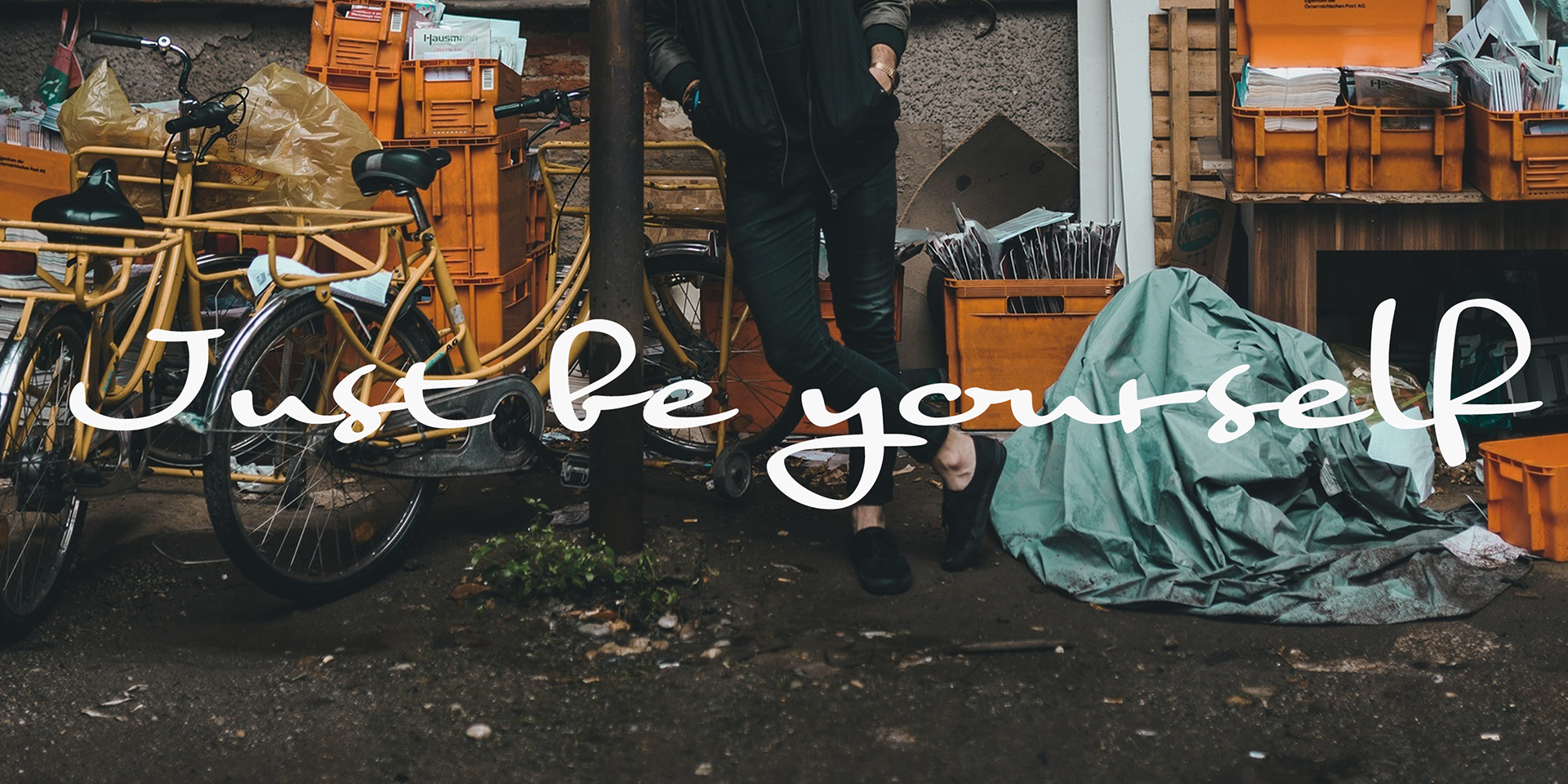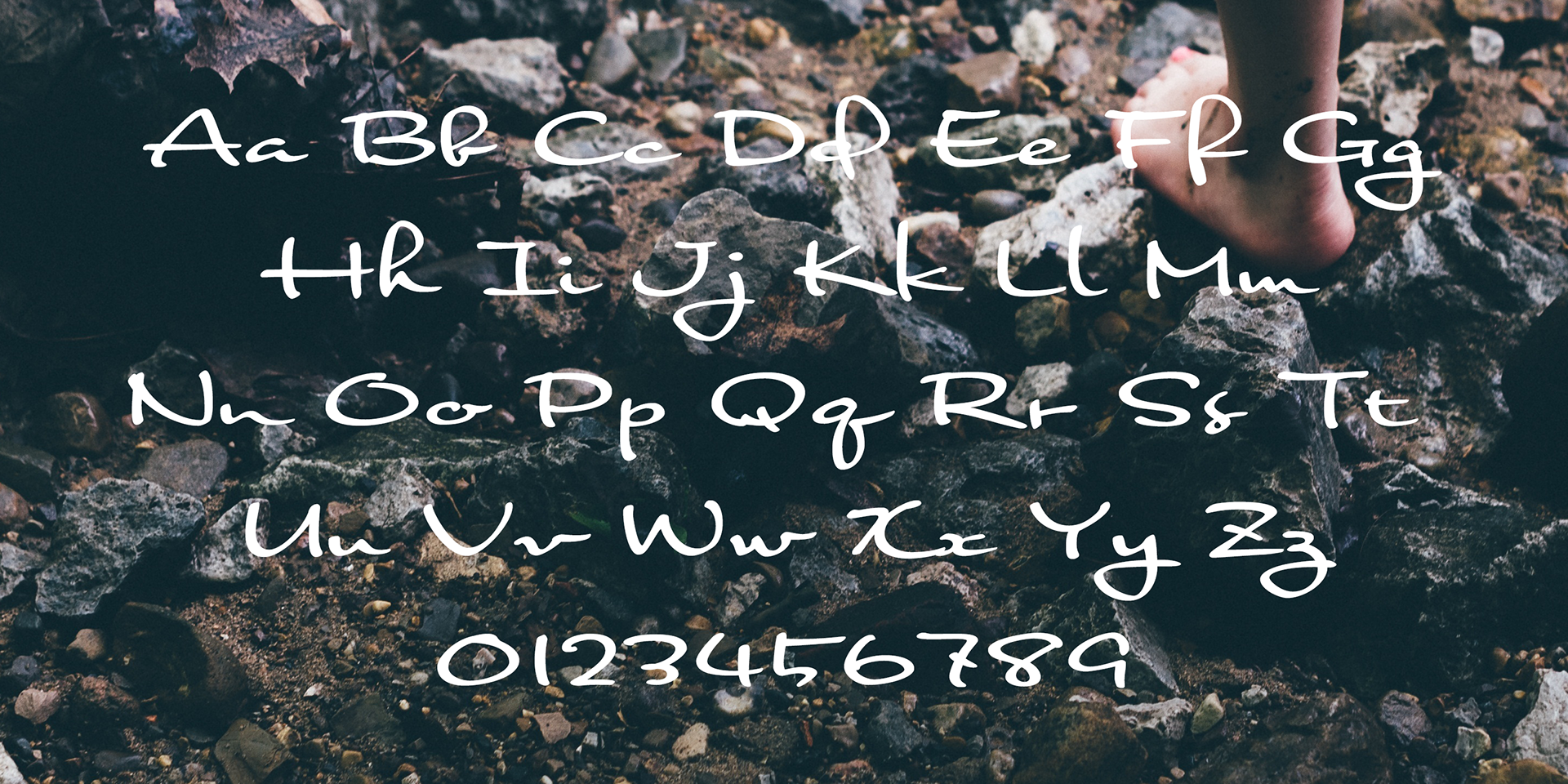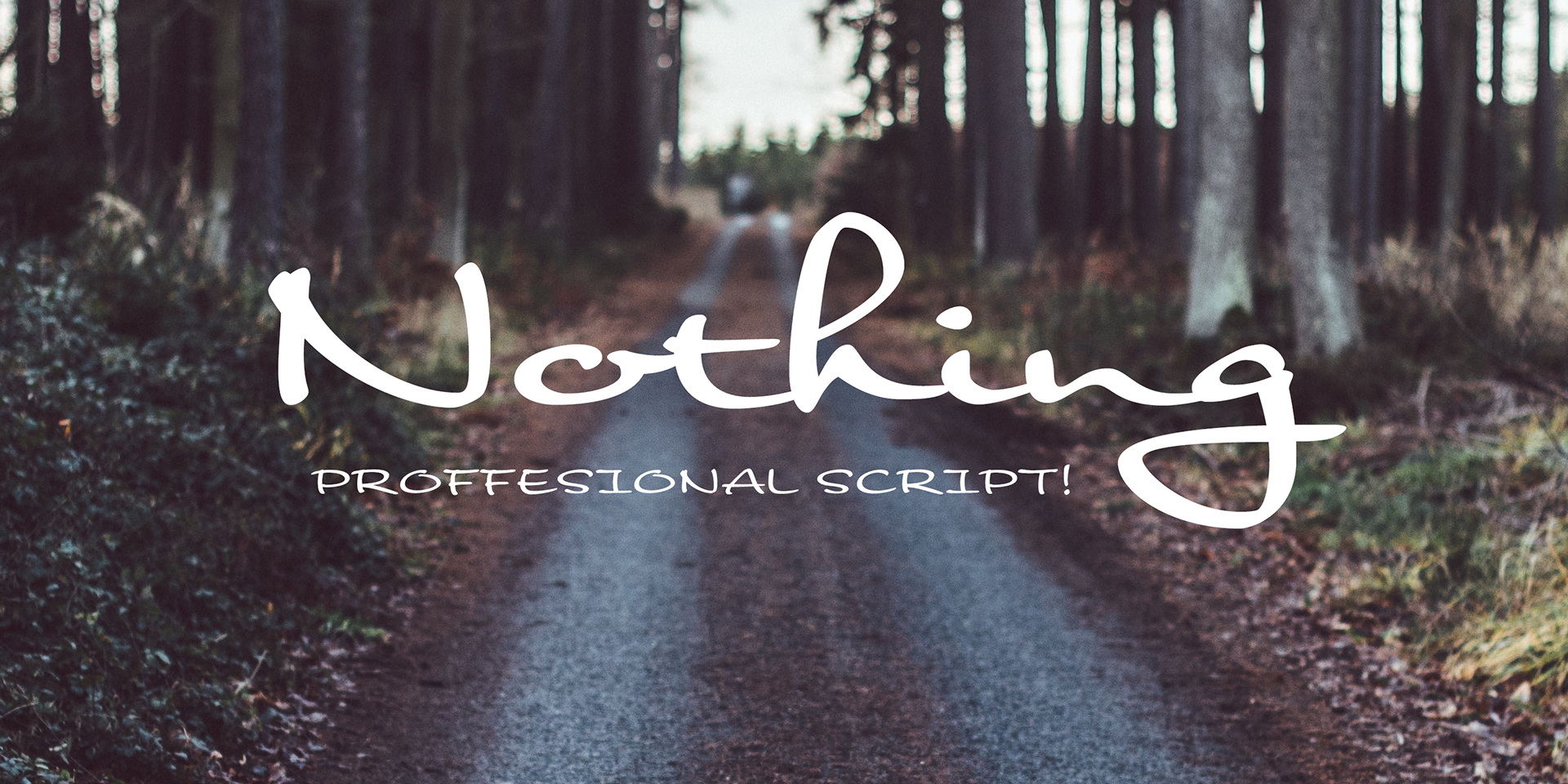
Nothing
A true handwriting script, this font makes a powerful visual impact with its heavy, wide, and fast-flowing strokes.
Since its inception in mid-2006, Ryoichi Tsunekawa’s Flat-It foundry (Dharma Type) has published an impressive collection of script and display fonts. Nothing, a name that is likely to cause confusion in some studios, is among their latest script faces. It’s been a hit ever since it came out in mid-August. Its look is not so easy to describe: it’s spontaneous yet balanced, confident yet unassuming, elegantly connected yet technically simple. It could have been hand-rendered with a brush by one of the few great American lettering artists working for Hollywood or Madison Avenue. But as the PDF proudly states, it is from Nagoya, Japan – another winner from Flat-It, Dharma Type. —MyFonts